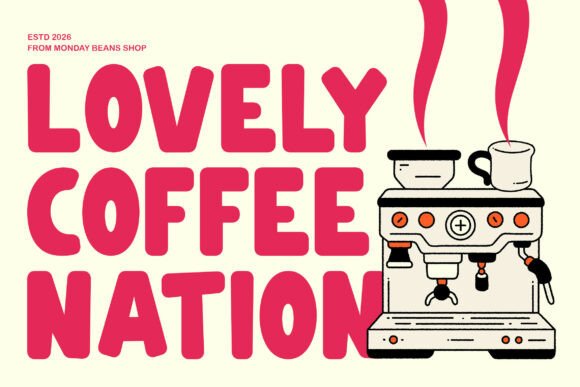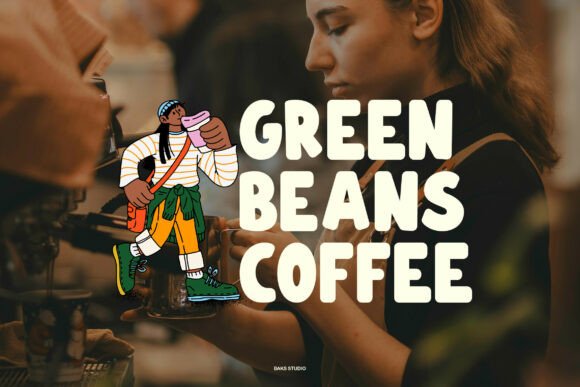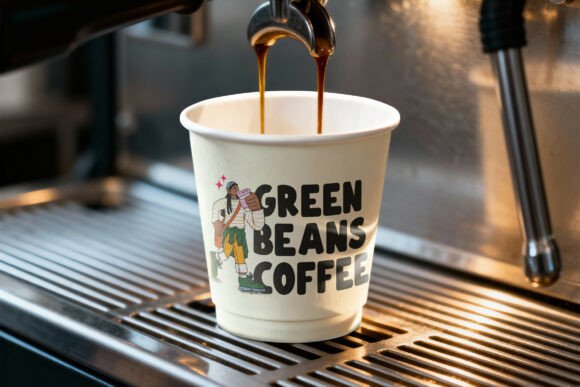
Introduction to Norva Font
Have you ever stared at a blank canvas, waiting for the perfect font to bring your creative project to life? It’s that moment when the entire design starts to take shape, and the right typography can make all the difference. For designers looking to add a touch of nostalgia and modern flair to their work, the Norva Font is a game-changer. Born from the love of 1970s soft serve typography, this retro bold display font is not just a pretty face – it’s a powerful tool that demands attention.
With its voluminous, bubble-like strokes and smooth, rounded corners, the Norva Font exudes friendliness and confidence. Whether you’re designing commercial branding, merchandise, digital content, or packaging, this versatile font is the ultimate design resource. Its high-quality strokes and transparent background make it a free download that’s worth its weight in gold, allowing designers to add a professional touch to their creative projects without breaking the bank.
As a valuable addition to any designer’s toolkit, the Norva Font offers a unique blend of nostalgic warmth and modern commercial sharpness. It’s the perfect way to bridge the gap between classic and contemporary, making it a must-have for any creative looking to take their design to the next level.
Key Features of Norva Font
- Unique and stylish font with a modern aesthetic, perfect for use in graphic design, digital art, and other creative pursuits.
Honest Review: Norva Font
I recently came across the Norva Font and was excited to dive in and see what it has to offer. As a designer, I’m always on the lookout for high-quality design resources to enhance my creative projects. Norva Font definitely fits the bill.
One of the standout features of the Norva Font is its clean and modern design. It’s perfect for creating a sleek and sophisticated look in your design projects. Plus, it’s available for a free download, making it an accessible resource for designers of all levels.
That being said, there are a few limitations to consider:
- ⚠️ Limited font styles available, may not be suitable for complex typography projects
Overall, I’m impressed with the Norva Font and would definitely recommend it to designers looking for a high-quality, free design resource. It’s a great addition to any design toolkit and can help take your creative projects to the next level.